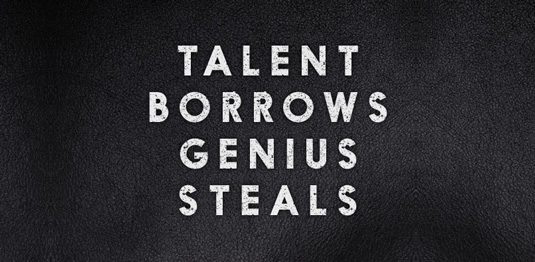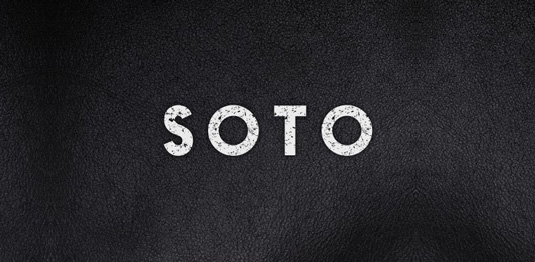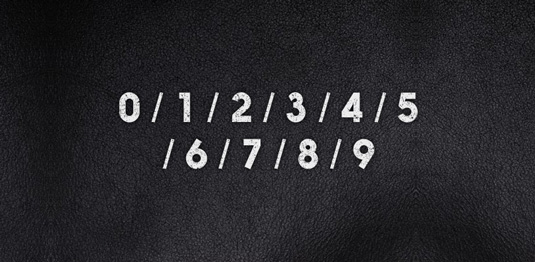
Font of the day: Soto
Every day we showcase the best fonts on the web. Today it's Soto from Thinkdust.
Soto from Thinkdust
If you're looking for an eye-catching display typeface, grunge sans Soto could be just the solution. Created by the team at Thinkdust, Soto is a remix of its 2010 Saki typeface, with added texture and attitude.